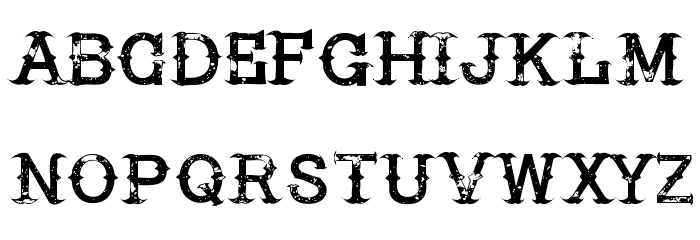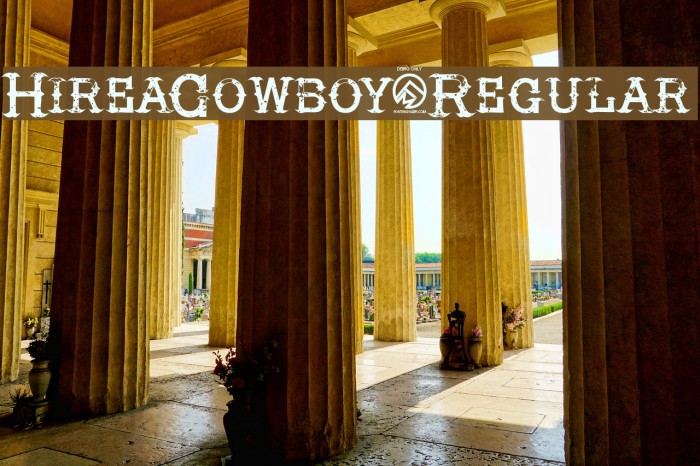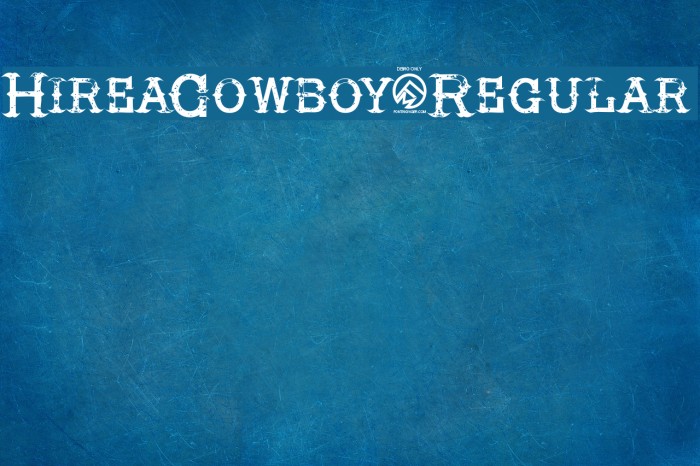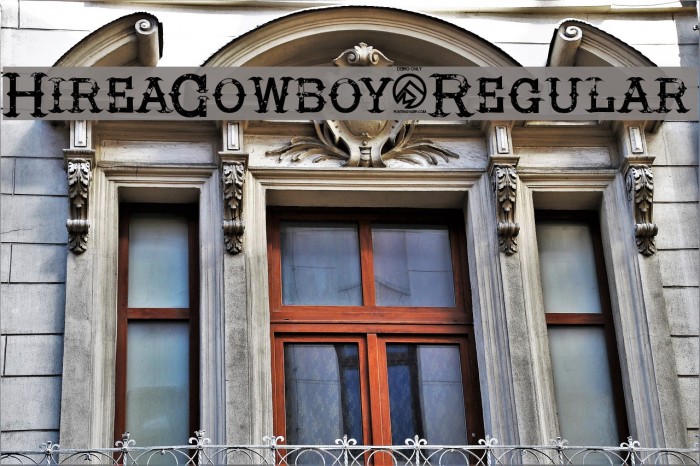
HireaCowboy-Regular Font
This font features a rugged, distressed style that evokes a sense of the Wild West. The characters are bold and heavily textured, with rough edges and a weathered appearance, reminiscent of old cowboy posters or signage. The uppercase letters are particularly striking, with a strong presence and unique detailing that adds to the overall rustic charm. The font's decorative elements give it a distinctive personality, making it ideal for projects that require a vintage or western aesthetic.
A rugged, distressed font with a Wild West vibe and bold, textured characters.
- Proposed Projects: Perfect for western-themed posters, vintage signage, branding for rustic products, or any design needing a touch of cowboy flair.
- Overall Style: Vintage